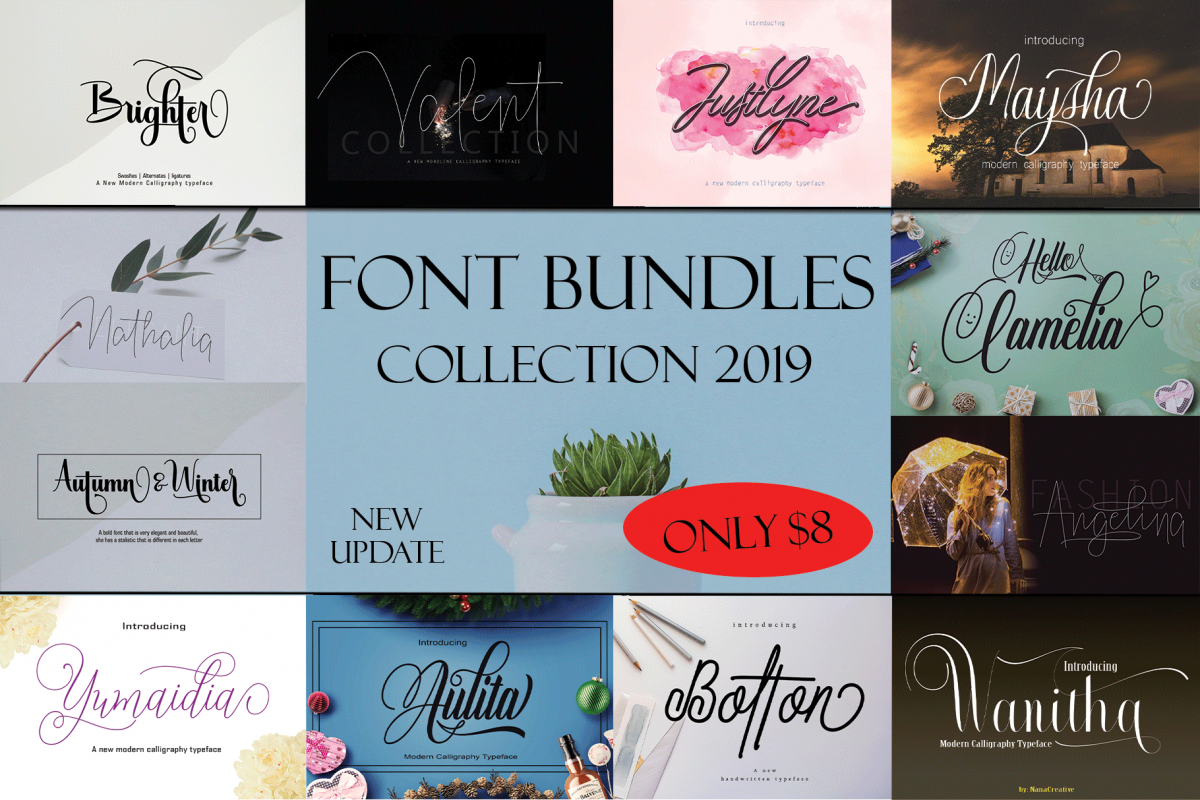
THE FANTASTIC FONT BUNDLE
Valechya
Eryca
Beauty
Aulita
Wanitha
Maysha
Yumaidia
Justlyne
Valent
Brighter
Bolton
Justlyne bold
THE FANTASTIC FONT BUNDLE
All fonts are perfect for branding, titles, signatures, logos, blogs, wedding invitations, t-shirts, letterhead, merchandise, signboards, labels, news, posters, badges, etc.